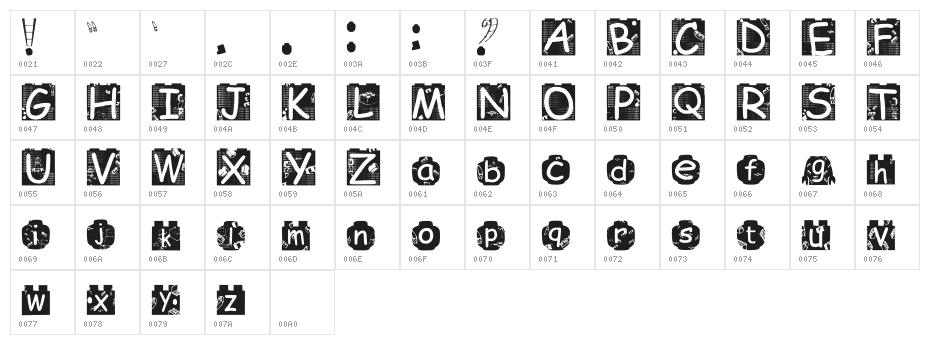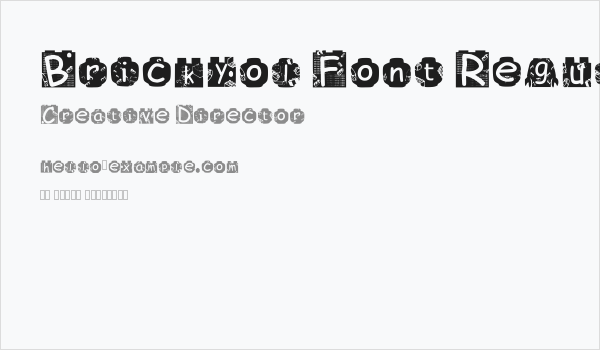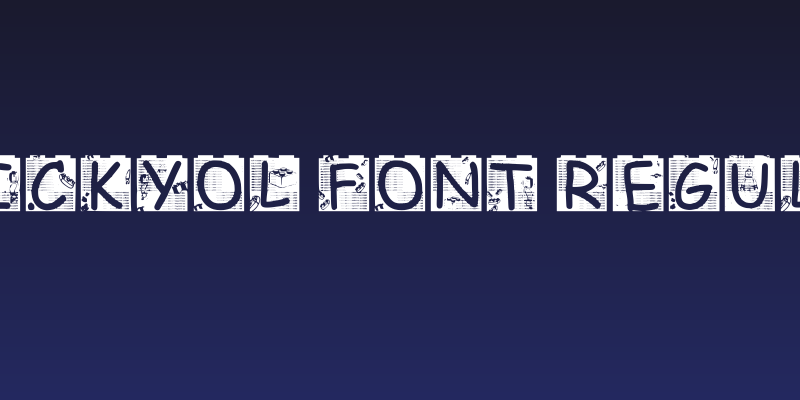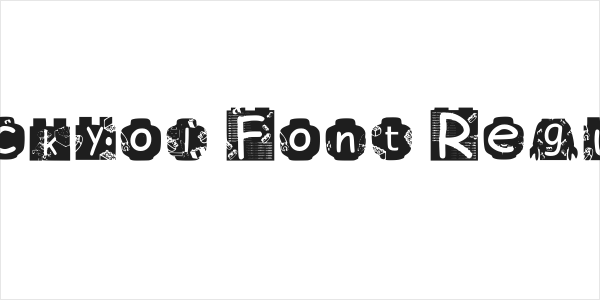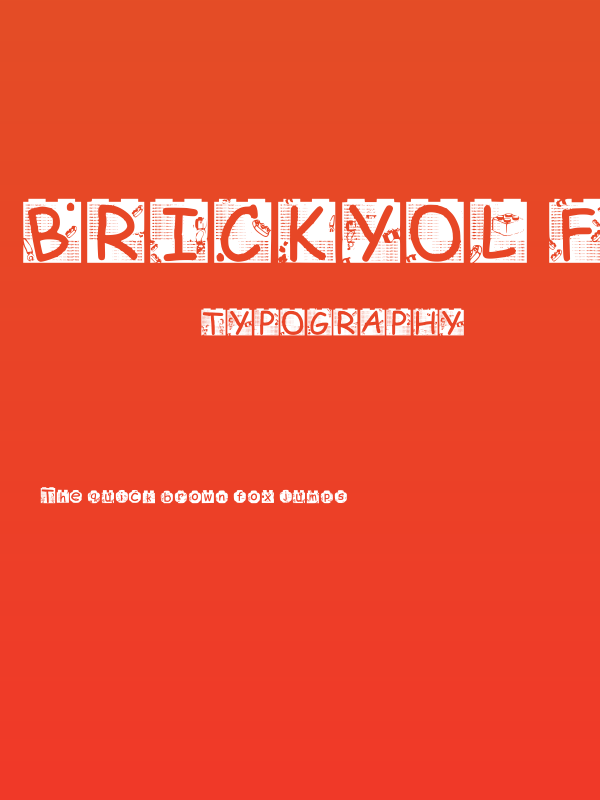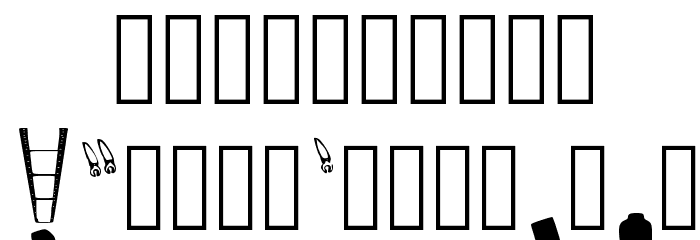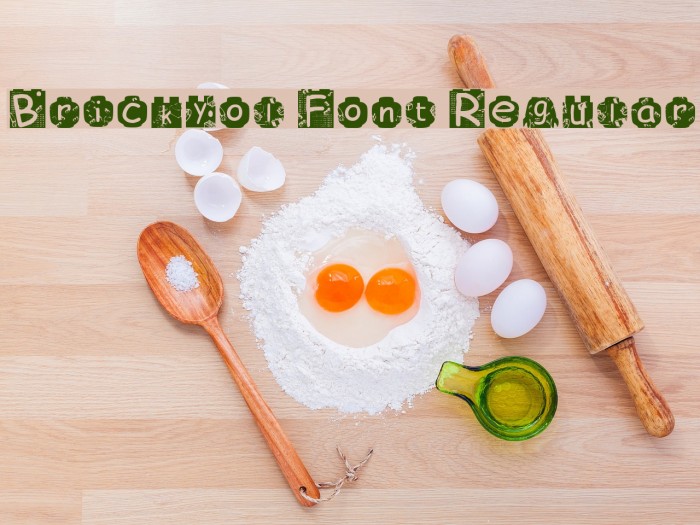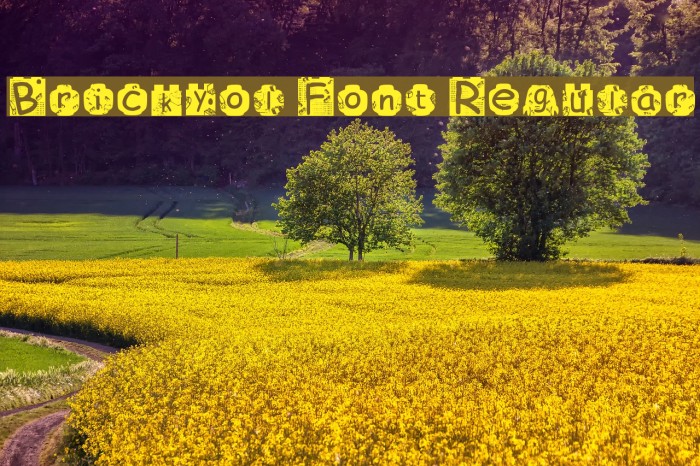
Brickyol Font Regular Font
Brickyol Font Regular Description
This font features a bold, blocky style with a distressed texture that gives it a rugged, industrial feel. Each character is enclosed within a square, adding a unique, structured appearance. The uppercase and lowercase letters maintain a consistent design, with the distressed effect providing a sense of depth and texture. The numerals and special characters follow the same stylistic approach, ensuring uniformity across all elements. This font's distinctive look makes it ideal for projects that require a strong, impactful visual presence.
Kamil Umaev
| Overall Style | Industrial, Rugged, Bold |
| Proposed Projects | Ideal for posters, album covers, branding, and any design needing a bold, gritty aesthetic. |